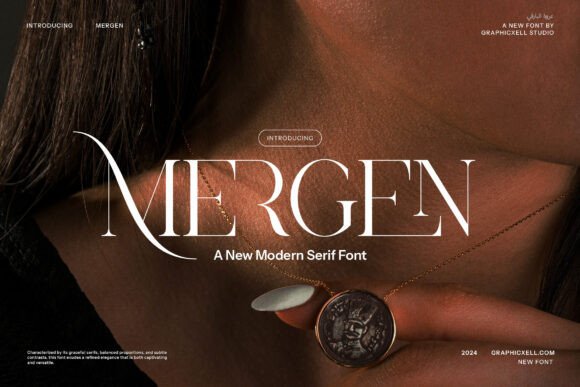
Font Choice That Matters: How Mergen Shapes Campaign Success
It was a typical morning in the marketing department, and I was deep into finalizing visuals for our upcoming product launch. The team had already drafted the copy, designed the color scheme, and selected the imagery—everything was set except for one crucial detail: the font. As I scrolled through the options, I realized how much weight a single typeface could carry in shaping the entire campaign’s tone and effectiveness.
The Power of First Impressions
Fonts are more than just text—they’re a silent communicator. They set the mood, influence readability, and reinforce brand identity. When designing a launch graphic or a social media post, the right font can make the difference between a message that gets noticed and one that fades into the background of a fast-scrolling feed.
That’s why I turned to Mergen, a modern serif typeface that brings both elegance and approachability to any design. Its delicate curves and refined structure give it a sophisticated yet friendly feel, making it ideal for campaigns that aim to balance professionalism with warmth.
Designing for Visibility and Readability
As I prepared the Instagram preview for our product launch, I knew we needed a font that would stand out on mobile screens and small thumbnails. Mergen’s clean lines and moderate weight made it easy to read at a glance, even when scaled down. It worked seamlessly on both light and dark backgrounds, which is essential for ensuring visibility across different platforms.
I used Mergen for the headline of our main promotional graphic, pairing it with a bold sans-serif font for contrast. This combination helped establish a clear visual hierarchy, guiding the viewer’s eye from the title to the supporting details. The result? A design that felt intentional, professional, and easy to digest.
Campaign Consistency Through Typography
Consistency is key in any marketing campaign. Whether you're creating a series of YouTube thumbnails or building a branded content set, using the same font throughout reinforces brand recognition. Mergen’s versatility allowed me to use it across multiple assets—from webinar banners to email headers—without losing its character or clarity.
For example, during our seasonal sale campaign, I used Mergen as the primary font for all social media posts. Its elegant style complemented the high-quality product images, while its legibility ensured that key messages like “50% Off” were immediately understood. The consistency helped build trust with our audience, making the campaign feel cohesive and reliable.
Pairing Mergen with Other Fonts
While Mergen works well on its own, I often pair it with other fonts to enhance visual appeal and readability. For instance, I paired it with a clean sans-serif font like Montserrat for body text, which created a balanced look that felt modern and professional. This pairing also improved legibility on smaller screens, where too much detail can be overwhelming.
When designing a course launch poster, I used Mergen for the title and a script font for the tagline. The contrast between the two styles added personality and depth to the design without clashing. It was a subtle but effective way to highlight the main message while keeping the overall aesthetic aligned with the brand’s voice.
Practical Tips for Using Mergen in Campaigns
Branding Beyond the Screen
Mergen isn’t just for digital campaigns—it’s also a great choice for print materials, packaging design, and editorial layouts. Its refined curves and structured form make it suitable for both display text and supporting typography, offering a versatile solution for a wide range of creative needs.
One of my favorite uses was in a branded content series for an online shop. I used Mergen for the logo-style text and product descriptions, which helped create a consistent brand identity across all touchpoints. The font’s charm and sophistication resonated well with the target audience, reinforcing the brand’s premium positioning.
Final Thoughts on Font Selection
Choosing the right font is a strategic decision that impacts every aspect of a campaign—from first impressions to long-term brand recognition. Mergen stands out as a font that balances elegance with accessibility, making it a powerful tool for marketers and designers alike.
Whether you’re launching a new product, promoting a seasonal sale, or building a content series, Mergen can help you communicate your message clearly, confidently, and beautifully. With its versatility, readability, and stylish appeal, it’s a font that deserves a place in your design toolkit.